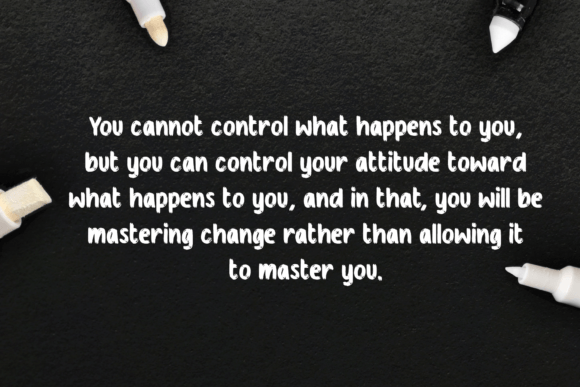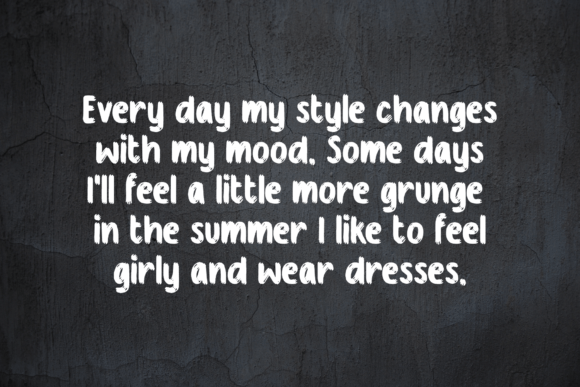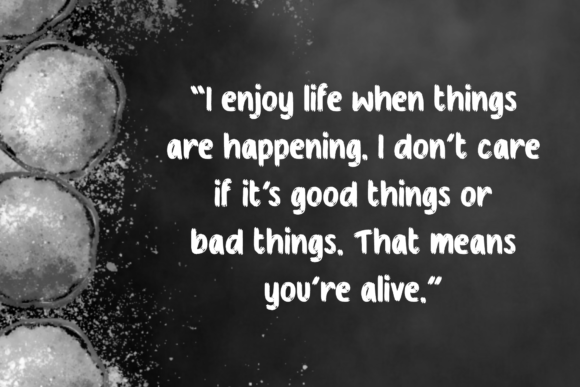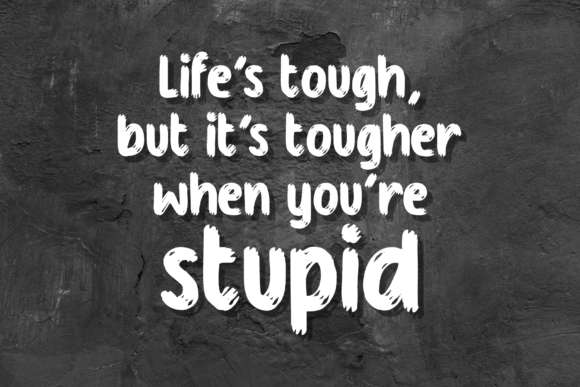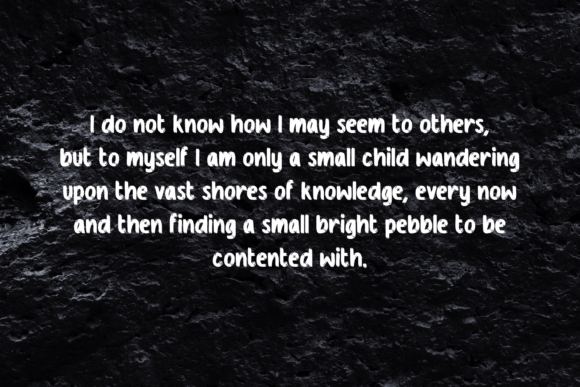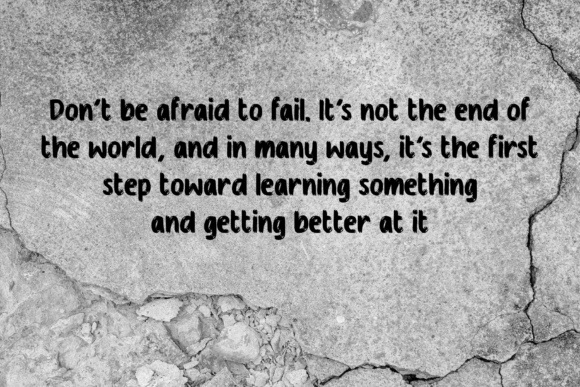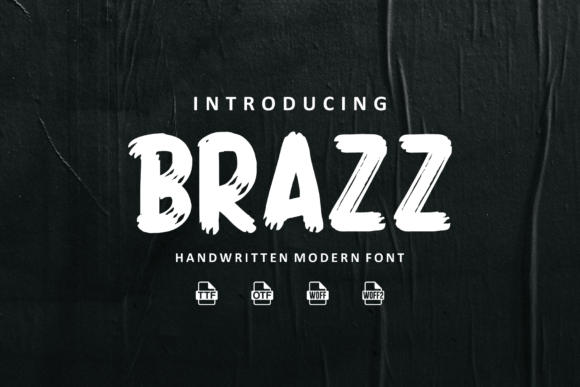
Discover the Power of Brazz Font: Elevate Your Designs with a Modern Sans-Serif Font
Are you a designer or crafter looking for a font that can add a touch of modernity and strength to your designs? Look no further than Brazz Font. This simple sans-serif font is perfect for creating cool logos, branding, and promotional materials that make a lasting impression. In this article, we’ll explore the features and benefits of Brazz Font, and how it can elevate your designs to the next level.
What is Brazz Font?
Brazz Font is a clean, simple, and casual handwritten font that brings a modern and strong impression to your design. It’s a versatile font that can be used for a wide range of applications, from website headers and text to logo design, branding, and promotional materials. With its sans-serif design, Brazz Font exudes a sense of simplicity and elegance, making it perfect for designers who want to create a professional and modern look.
Key Features of Brazz Font
So, what makes Brazz Font so special? Here are some of its key features:
- Simple and Clean Design: Brazz Font has a simple and clean design that makes it easy to read and understand. Its sans-serif design ensures that your text looks modern and elegant.
- Modern and Strong Impression: Brazz Font brings a modern and strong impression to your design, making it perfect for creating logos, branding, and promotional materials.
- Versatile: Brazz Font can be used for a wide range of applications, from website headers and text to logo design, branding, and promotional materials.
Benefits of Using Brazz Font
So, why should you use Brazz Font in your designs? Here are some benefits:
- Professional Look: Brazz Font gives your design a professional and modern look that will make it stand out.
- Easy to Read: Brazz Font is easy to read, making it perfect for body text and headers.
- Versatile: Brazz Font can be used for a wide range of applications, making it a great addition to your font library.
- Time-Saving: Brazz Font saves you time and effort in creating custom fonts for your designs.
Design Ideas Using Brazz Font
Brazz Font is a versatile font that can be used for a wide range of design applications. Here are some design ideas to get you started:
- Logo Design: Use Brazz Font to create a modern and professional logo for your brand.
- Branding: Use Brazz Font to create a consistent brand identity across all your marketing materials.
- Website Headers: Use Brazz Font to create modern and elegant website headers that make a lasting impression.
- Posters and Flyers: Use Brazz Font to create eye-catching posters and flyers that grab attention.
In conclusion, Brazz Font is a powerful and versatile font that can elevate your designs to the next level. Its simple sans-serif design, modern and strong impression, and ease of use make it a great addition to your font library. Whether you’re a designer or crafter, Brazz Font is perfect for creating cool logos, branding, and promotional materials that make a lasting impression.